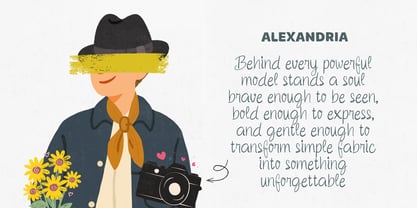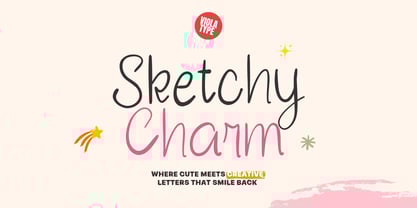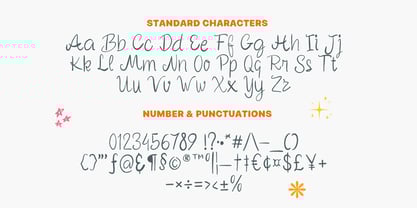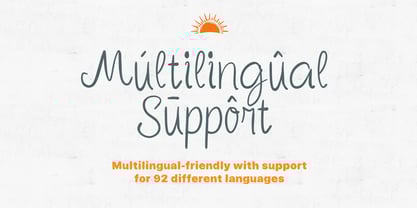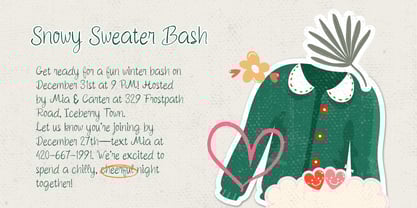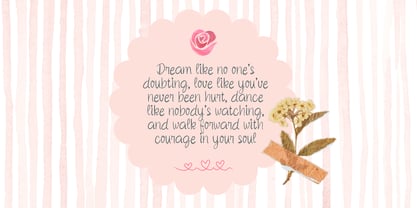
Sketchy Charm
by Violatype
The Sketchy Charm Font Family was designed by David Kasidi, Hasna Viola and published by Violatype. Sketchy Charm contains 1 styles.
Sketchy Charm is a playful handwritten font designed to bring warmth, personality, and effortless creativity to every project. With its smooth strokes, natural letter flow, and charming handmade feel, this font adds a joyful and authentic touch to branding, social media designs, invitations, logos, packaging, quotes, and more. Crafted with attention to detail, Sketchy Charm includes complete standard characters, numbers, punctuation, and full multilingual support for 92 languages, making it a versatile choice for global designers and creative professionals. Its friendly curves and slightly sketchy style make every word look expressive, approachable, and uniquely stylish—perfect for projects that need a fun yet clean handwritten aesthetic.
Designers: David Kasidi, Hasna Viola
Publisher: Violatype
Foundry: Violatype
Design Owner: Violatype